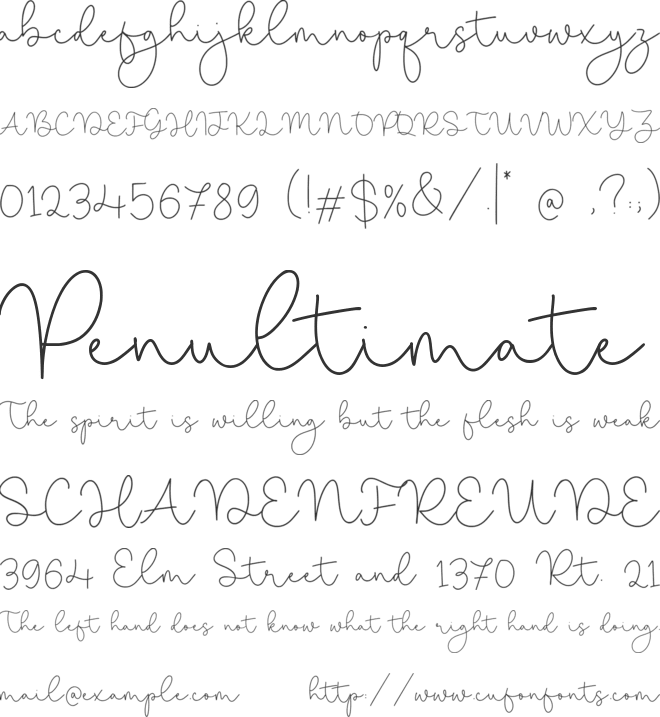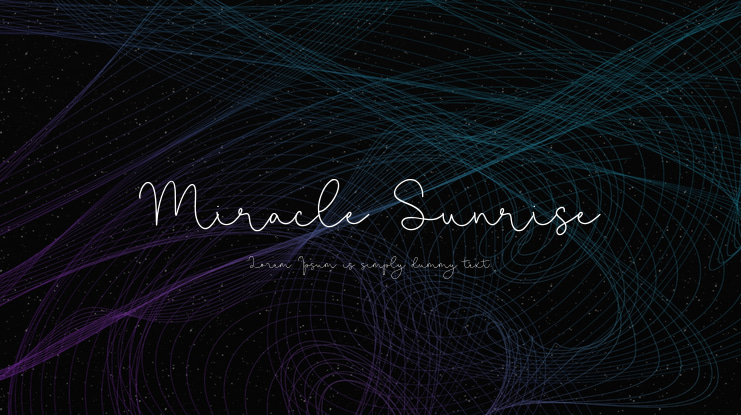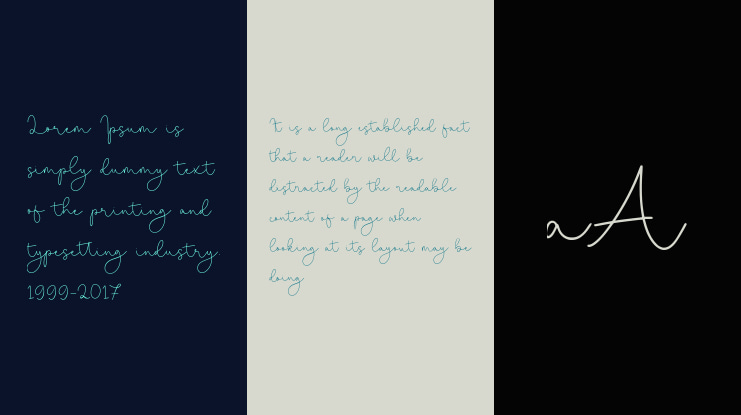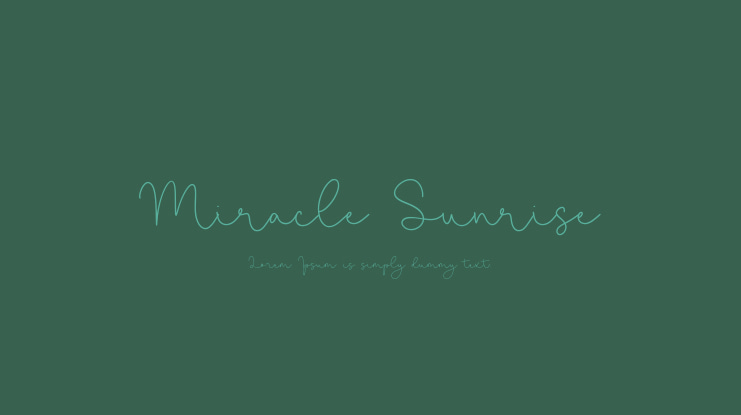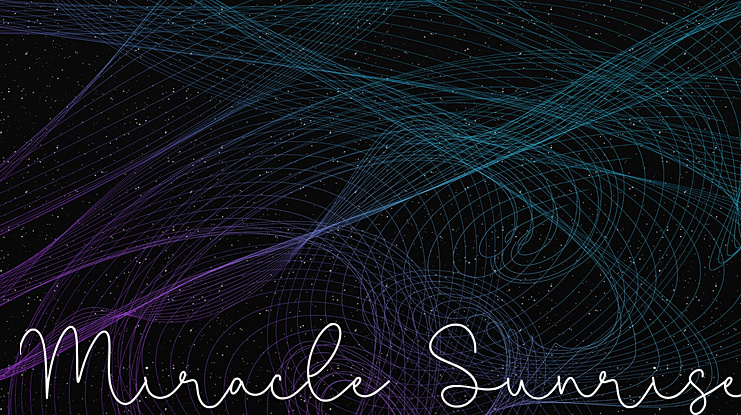
Miracle Sunrise Font
Letterative Studio
Introducing by Letterative Studio : Miracle Sunrise Font
Miracle Sunrise is a Monoline Calligraphy Font
Miracle Sunrise is perfect for product packaging, branding project, megazine, social media, wedding, or just used to express words above the background.
Miracle Sunrise also multilingual support